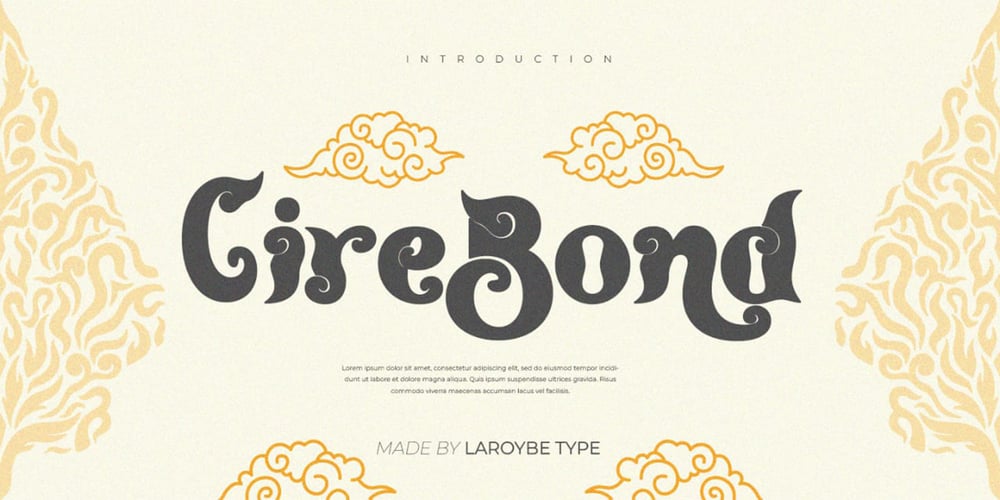
Cire Bone
Cire Bone font
Cire Bone Font Family was designed by Habib Abdur Rofi and published by Laroyba Type. Cire Bone contains 4 styles and family package options. Cirebond is a display font inspired by the rich cultural heritage of the city of Cirebon, particularly the iconic Mega Mendung batik pattern. Combining the unique motifs of batik, which symbolize serenity and peace, Cirebond offers a bold yet elegant visual experience, reflecting the wisdom and traditions of Cirebon. Each curve is designed to showcase traditional elements with a modern touch, making it perfect for various design needs that aim to highlight cultural and artistic identity. Ideal for branding, posters, packaging, or any design project requiring a strong and meaningful character.Bring the bold and distinctive essence of Cirebond into your creative works, a font that carries the cultural legacy of Cirebon with every stroke.